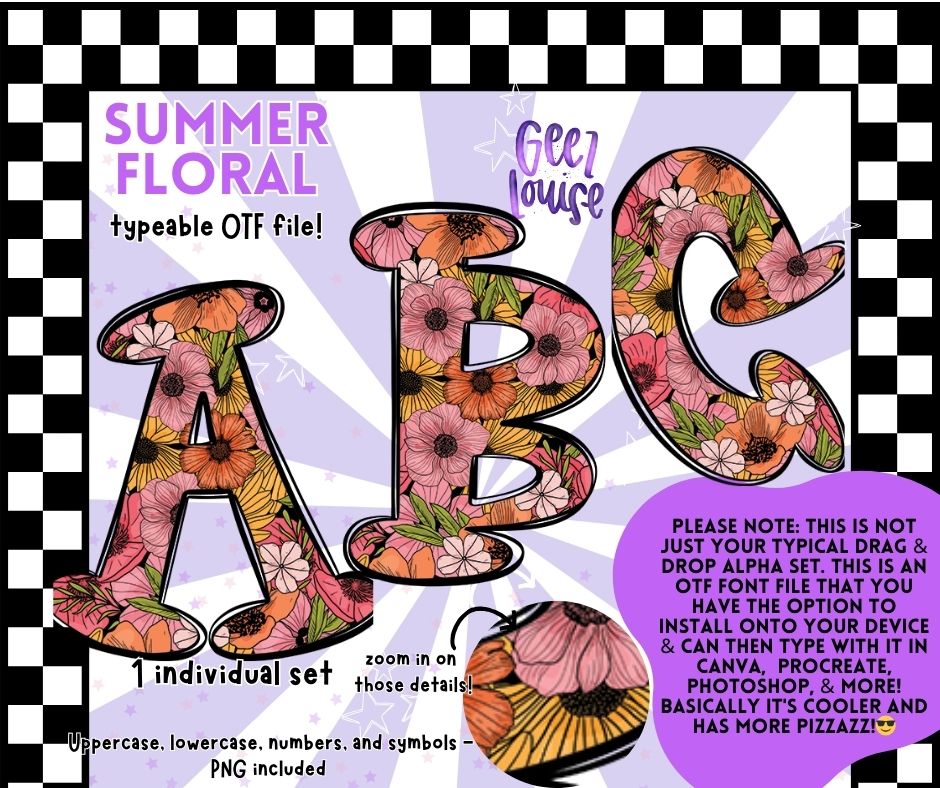
Summer Floral - TYPEABLE OTF Font - Alpha Set - Digital Download- PNG
Summer Floral OTF Font Set | Typeable Flower Alphabet + PNG Files
🌸 Your designs just found their summer romance! The Summer Floral OTF Alpha Set is a gorgeous garden party wrapped up in a font—bright, bold, and bursting with blooming charm. Whether you're crafting tees, tumblers, or planner pages, this font adds that fresh-picked, feel-good energy.
Perfect for floral lovers, summer vibes, boho branding, and fresh aesthetic magic ✨